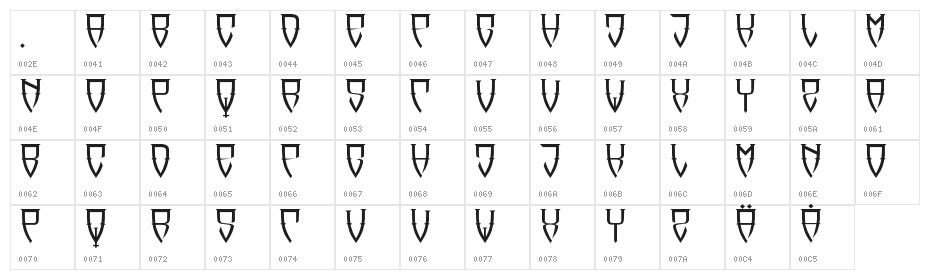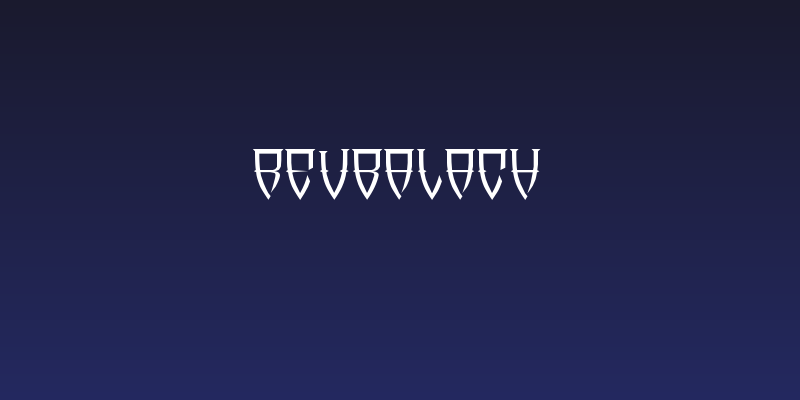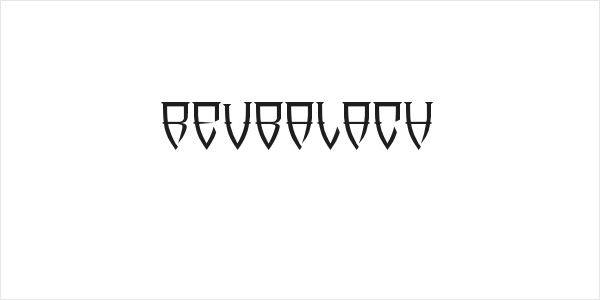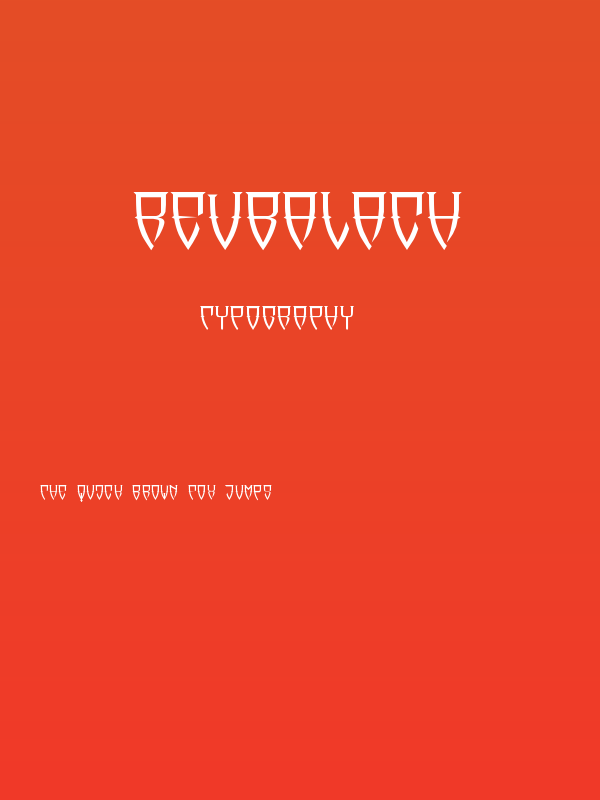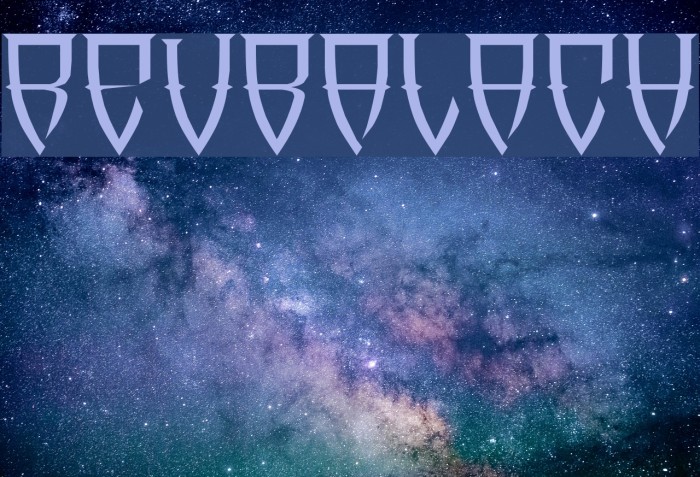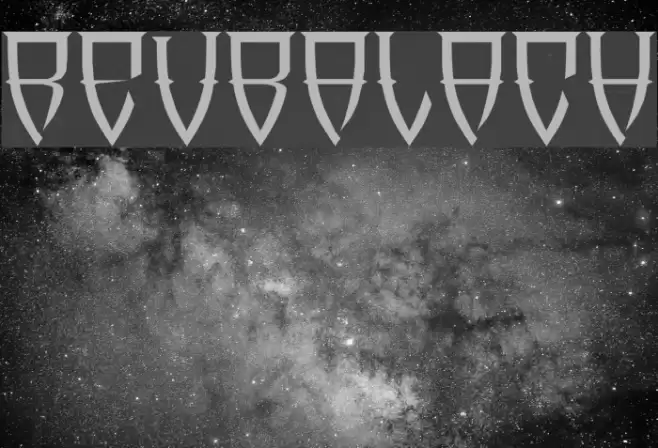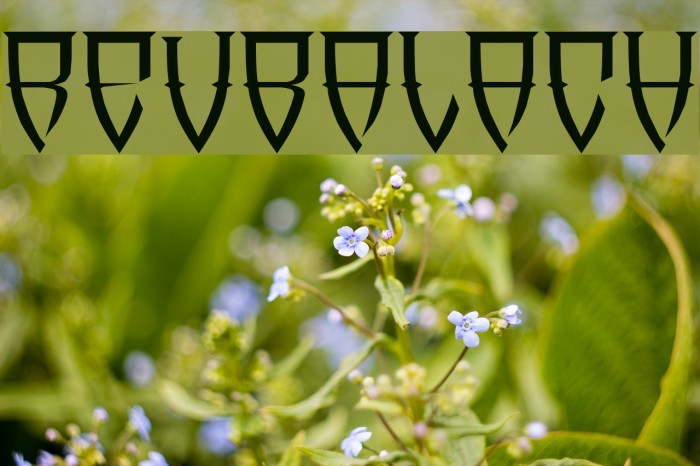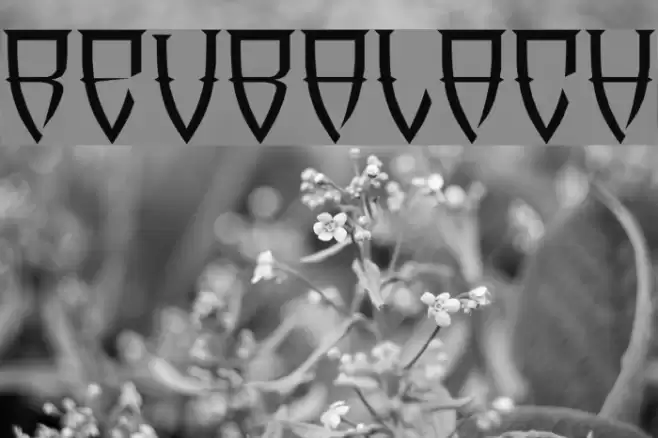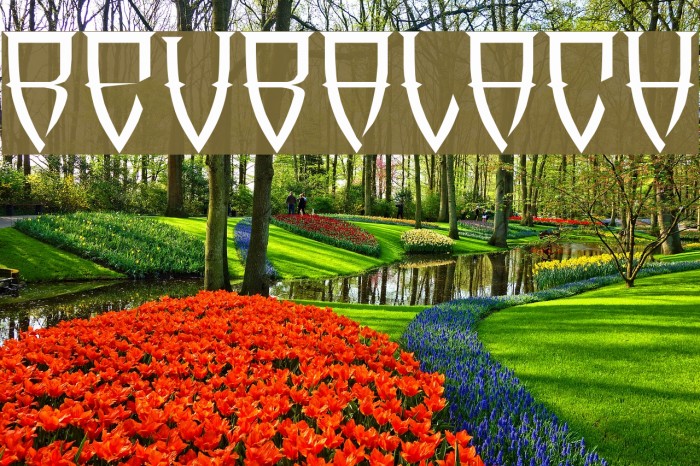
Reubalach Font
| Gesamtstil | Gothic, Medieval, Decorative |
| Vorgeschlagene Projekte | Ideal for fantasy-themed designs, book covers, video game titles, and branding that requires a medieval or gothic aesthetic. |